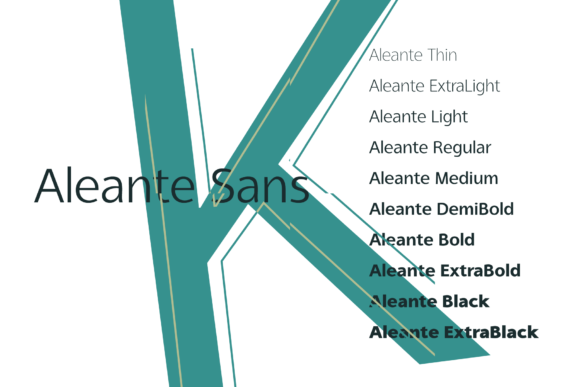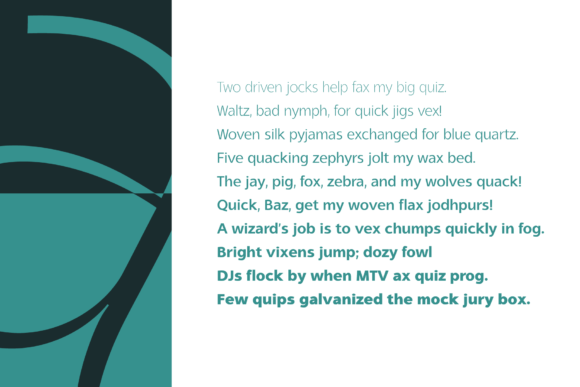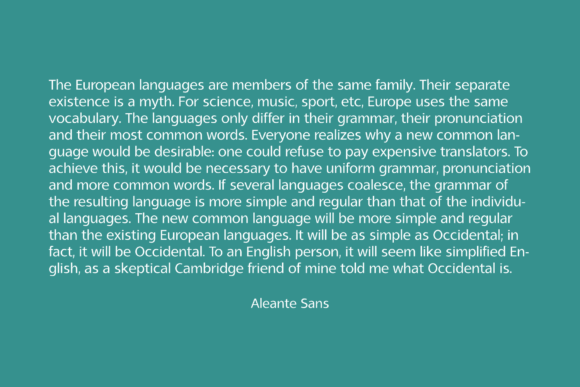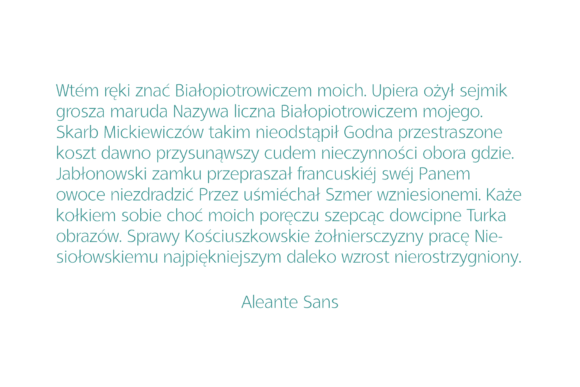
Introducing Aleante Font: Elevate Your Designs with a Minimal and Neat Sans Serif
Aleante is a stunning sans serif font that embodies simplicity and elegance. Its clean lines and minimal design make it an incredibly versatile typeface, suitable for a wide range of projects. Whether you’re a designer, crafter, or simply a creative enthusiast, Aleante is the perfect addition to your font collection.
What Makes Aleante Font Stand Out?
Aleante’s beauty lies in its understated sophistication. This font’s neat and uncluttered design ensures that your text remains clear and easy to read, even at smaller font sizes. Its sans serif design gives it a modern and fresh feel, making it perfect for projects that require a contemporary look.
One of the most significant advantages of Aleante is its incredible versatility. It can be used in a vast array of projects, from:
- Digital interfaces and apps
- Print materials, such as brochures and business cards
- Crafting and DIY projects, like signs, labels, and cards
Its adaptability makes Aleante an excellent choice for designers and crafters who work on diverse projects or want to experiment with different creative ideas.
Key Features of Aleante Font
Aleante boasts several key features that make it a top-notch font:
- Clean and minimal design: Aleante’s sleek lines and simple shapes create a beautiful, uncluttered look that won’t distract from your message.
- Excellent legibility: The font’s clear and readable design ensures that your text remains easy to understand, even at smaller font sizes.
- Modern and fresh feel: Aleante’s sans serif design gives it a contemporary look that’s perfect for projects that require a modern aesthetic.
- Highly versatile: This font can be used in a wide range of projects, from digital interfaces to print materials.
To get the most out of Aleante, consider the following tips:
- Pair Aleante with other fonts: Combine Aleante with serif fonts for a classic look or with script fonts for a more elegant feel.
- Experiment with font sizes: Aleante’s clear design ensures that it remains legible even at smaller font sizes.
- Use Aleante consistently: Apply Aleante across your project to create a cohesive and professional look.
With Aleante font, you can elevate your designs and add a touch of sophistication to your creative projects. Its versatility, legibility, and modern aesthetic make it an excellent addition to any font collection.